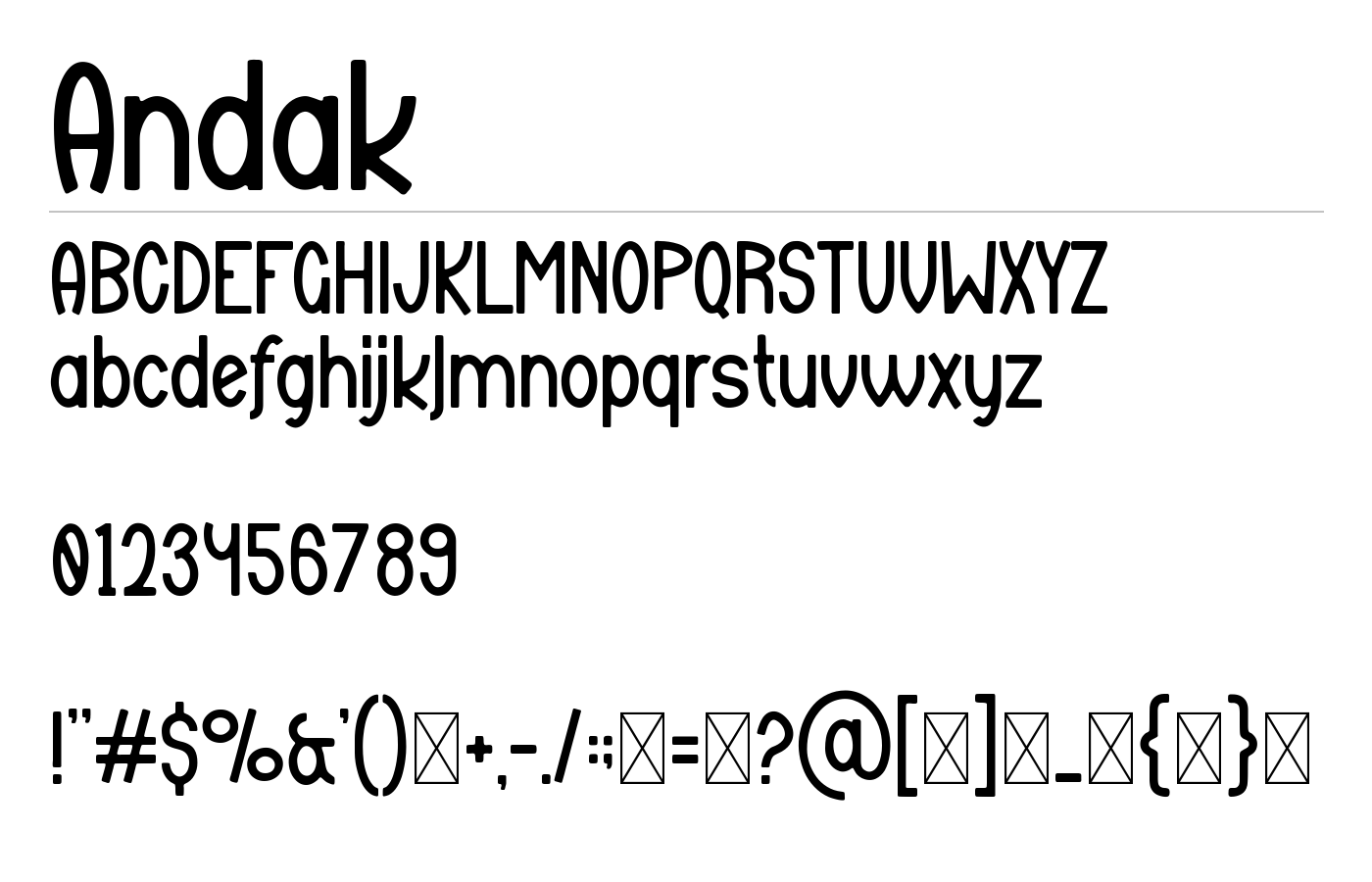
Andak is a playful and casual sans serif font with a slightly condensed width and medium x-height, featuring smooth, rounded strokes that give it a friendly and approachable feel. Its quirky letterforms, including single-story lowercase characters, make it perfect for informal branding, children’s books, or creative projects that need a warm and inviting touch. This font works well in headlines and short texts where a relaxed, fun vibe is desired.
Andak Font